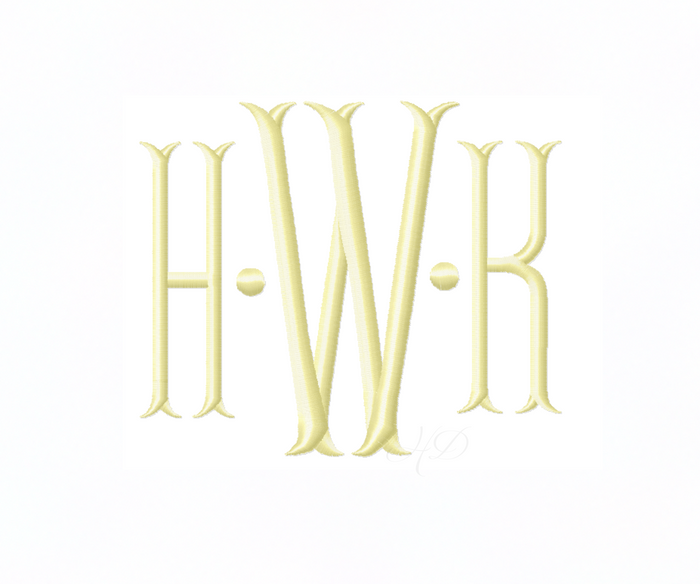
Fishtail Satin Embroidery Font 5x7
Unlock your creativity with the Fishtail Satin Embroidery Font 5x7, designed for crafters who demand elegance in their projects. This unique embroidery font features satin stitching that adds a touch of sophistication to any monogramming application.
Included in this download are uppercase letters, along with an accent dot, perfect for creating personalized monograms. The font sizes range from 4" to 6", all fitting inside a 5x7 hoop, making it versatile for various crafting endeavors.